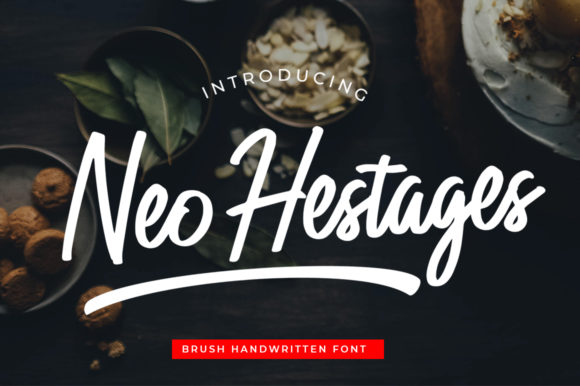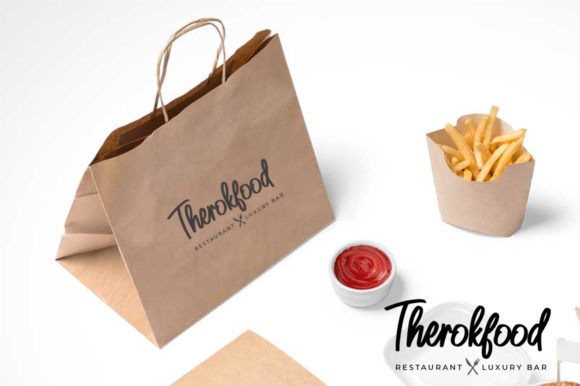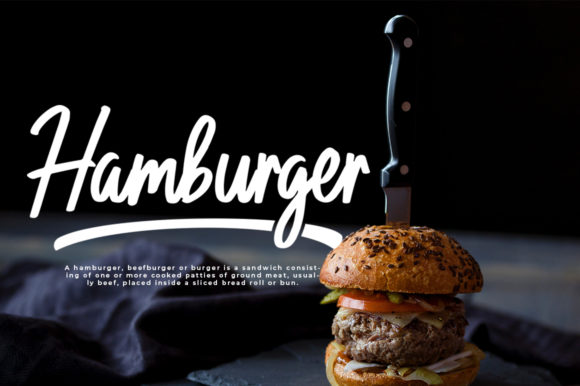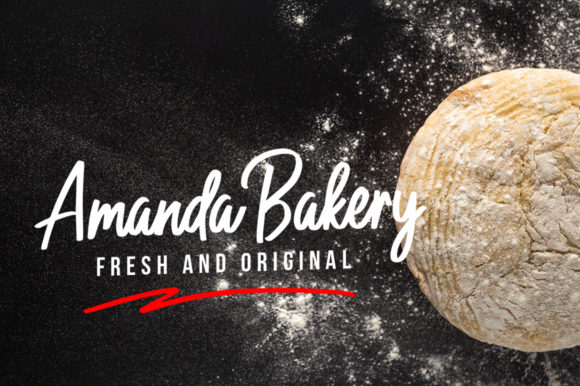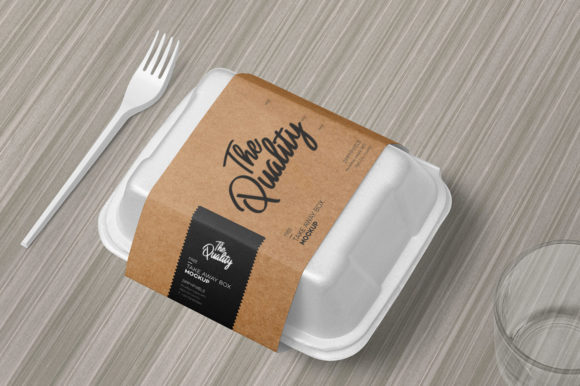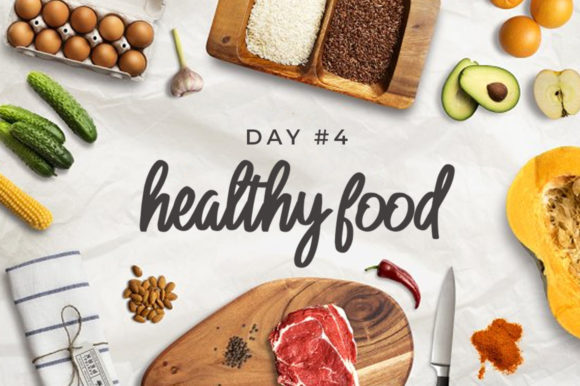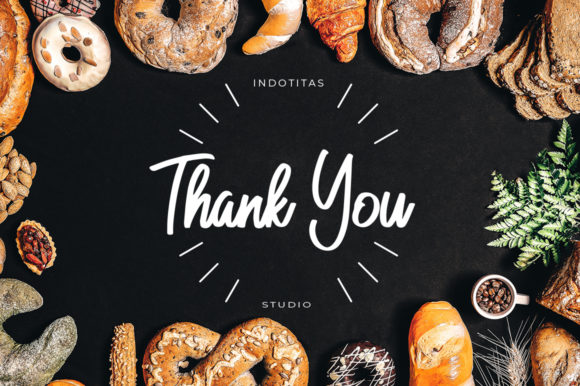
Neo Hestages Font
About Neo Hestages Font
The Neo Hestages is a striking brush font. It has a clear style, a good flow, and is perfect for making a calligraphy design in an instant.